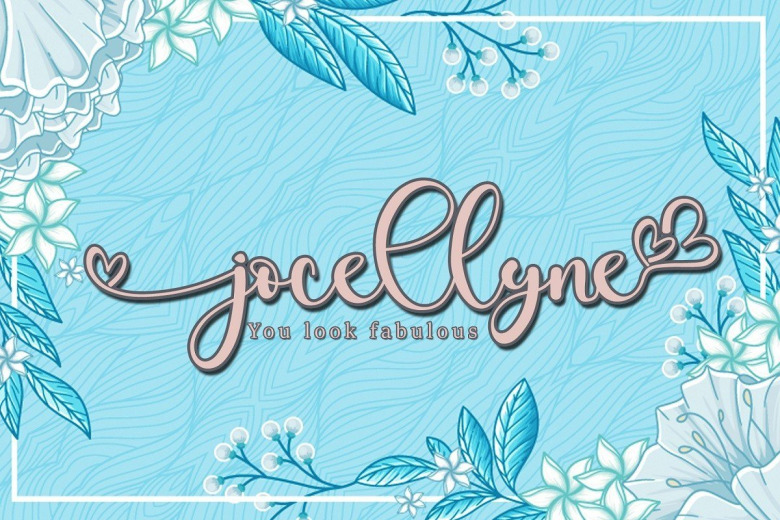
Jocellyne Font Free
Jocellyne Calligraphy Script Font is a delicate, elegant and flowing handwritten typeface. It has beautiful and well balanced characters and as a result, it matches a wide pool of designs. Jocellyne features a varying baseline, smooth lines, gorgeous glyphs and stunning alternates.